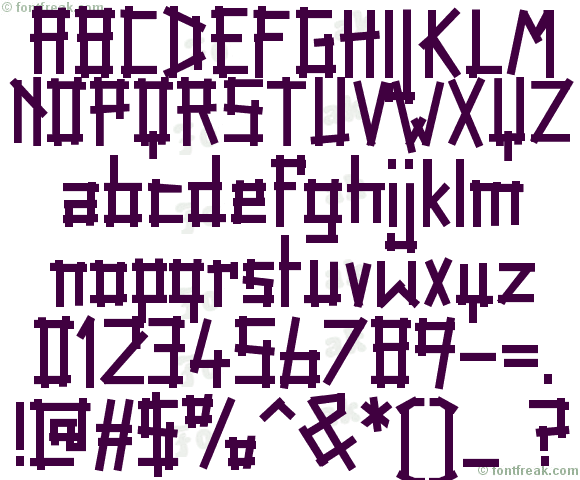
Tape Rail
The Tape Rail font by MonoFonts is a unique and playful display typeface that captures the essence of retro tape aesthetics. This font falls into the decorative category, showcasing a distinct style that combines boldness with an informal charm. Its design features varied stroke weights, with some letters appearing thicker and more pronounced, while others are lighter, creating a dynamic visual rhythm. The spacing between characters is slightly irregular, mimicking the feel of handwritten text or playful signage, making it an eye-catching choice for creative projects.
Ideal for a variety of applications, Tape Rail shines in contexts where a fun and engaging look is desired. It works beautifully on restaurant menus, where its quirky style can enhance the overall dining experience. Additionally, it is well-suited for movie posters, especially for indie films or projects with a nostalgic theme. Wedding invitations can also benefit from its informal elegance, providing a unique touch to the special day. Graphic designers will find this font particularly appealing for branding materials, where it can help create a memorable visual identity. Content creators looking to add a distinctive flair to their online platforms will also appreciate its versatility.